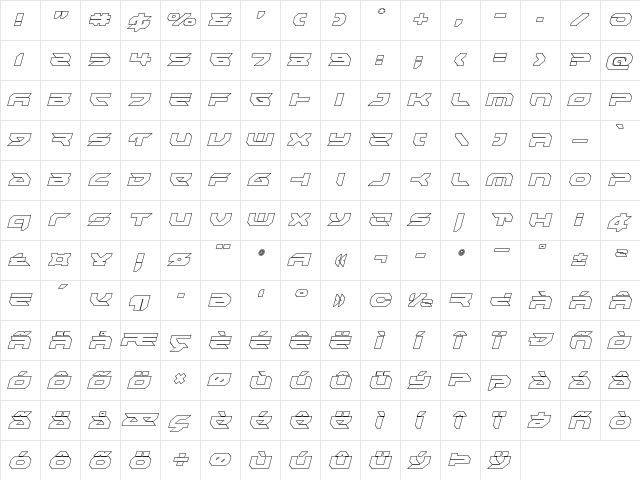
Royal Samurai Outline Italic Outline Italic
Design Context for Royal Samurai Outline Italic Typeface
Royal Samurai Outline Italic is built around its visual character rather than neutral utility — its distinctive forms are designed to make an impression at display sizes. The dynamic lean of this cut emphasises speed and emphasis in any layout.
Font Pairing: Pair with a clean neutral sans-serif for body copy to let Royal Samurai Outline Italic's character lead without overwhelming the composition.
Pro Tip: Treat Royal Samurai Outline Italic as the centrepiece of your typographic hierarchy. One strong heading set in a decorative face can carry an entire layout.